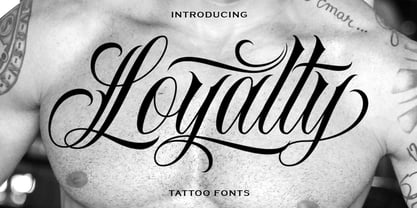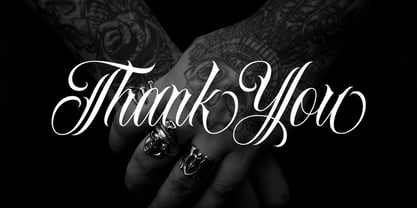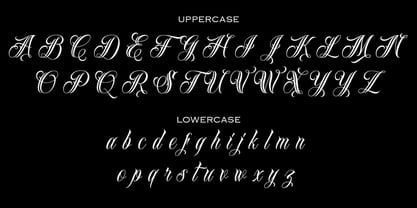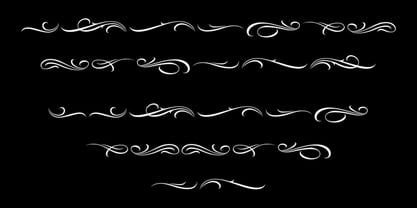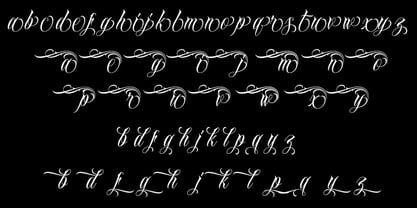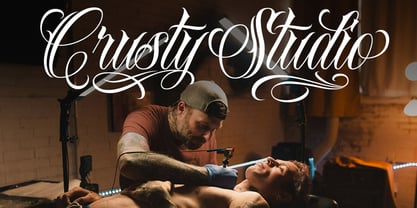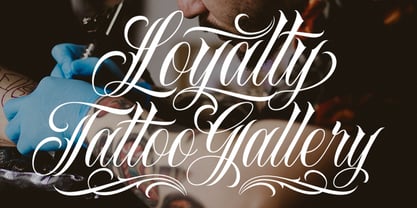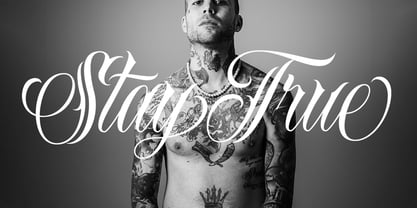
Loyalty
by Muntab Art
The Loyalty Font Family was designed by Satriyo Hutomo and published by Muntab Art. Loyalty contains 2 styles and family package options. More about this family
Loyalty is a bold script tattoo rooted in classic tattoo culture and street lettering. Built with sharp curves, heavy flow, and aggressive swashes, this font brings a raw and unapologetic attitude to your designs.
It’s made to stand out — whether you’re working on streetwear, logos, or statement pieces that need strong visual impact.
Every letter is designed to connect smoothly while still keeping that hand-drawn, gritty feel.
Perfect for Streetwear brands, tattoo lettering, logos, merch, posters, album covers, and bold typography work.
• Full set of uppercase & lowercase
• Alternates for different looks
• Swash set for extra attitude
• Ligatures
Designers: Satriyo Hutomo
Foundry: Muntab Art